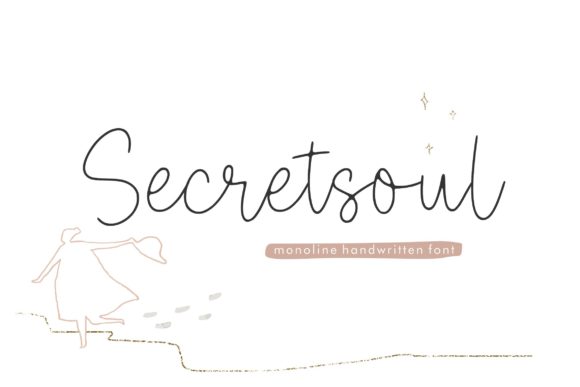
Behold! Secretsoul Monoline, a thin lettered, refined script font ready to bewitch your designs with its tantalizing sophistication and captivating elegance. This calligraphy masterpiece by Balpirick is a symphony of slender strokes, each precisely crafted to exude an air of luxury and finesse. Its graceful lines will dance their way through your projects, leaving a trail of enchantment that captivates and mesmerizes.
Secretsoul Monoline is more than just a font; it's an open invitation to explore the realm of aesthetics and creativity. Whether you're a daring designer seeking a touch of refinement or a passionate artist yearning for expressive typography, this script font will become your muse, guiding you to new heights of visual enchantment.
Dive into the depths of Secretsoul Monoline's character set, and discover a treasure trove of stylistic alternates and ligatures, like hidden gems waiting to be unearthed. Unleash your imagination and combine these elements to conjure up unique typographic expressions that will leave your audience spellbound.
With Secretsoul Monoline as your creative companion, you'll transform ordinary words into captivating works of art, making every letter a brushstroke in your storytelling. This font will elevate your designs beyond the mundane, infusing them with a timeless beauty that transcends trends and fads.
So, let Secretsoul Monoline be your guide on a journey to typographic excellence. Its enchanting script will cast a spell on your designs, captivating and alluring like a siren's song. Surrender to its charm, embrace its creativity, and unlock the true potential of your visual artistry today!